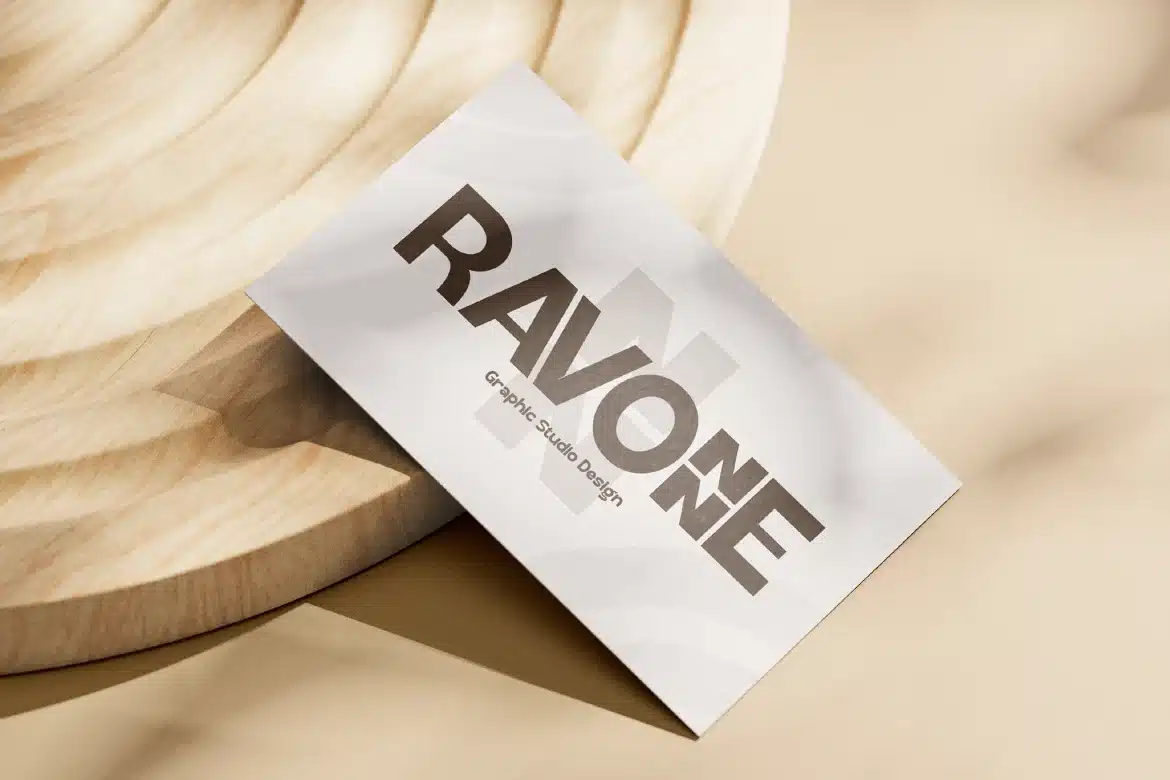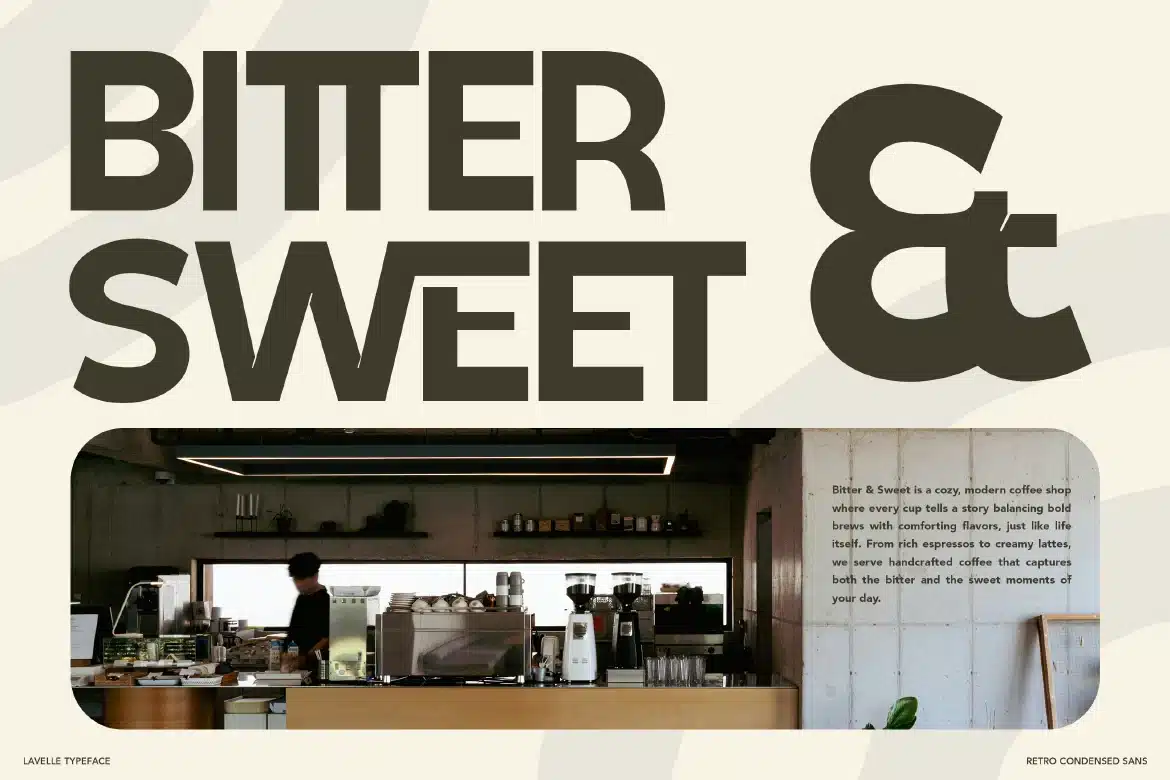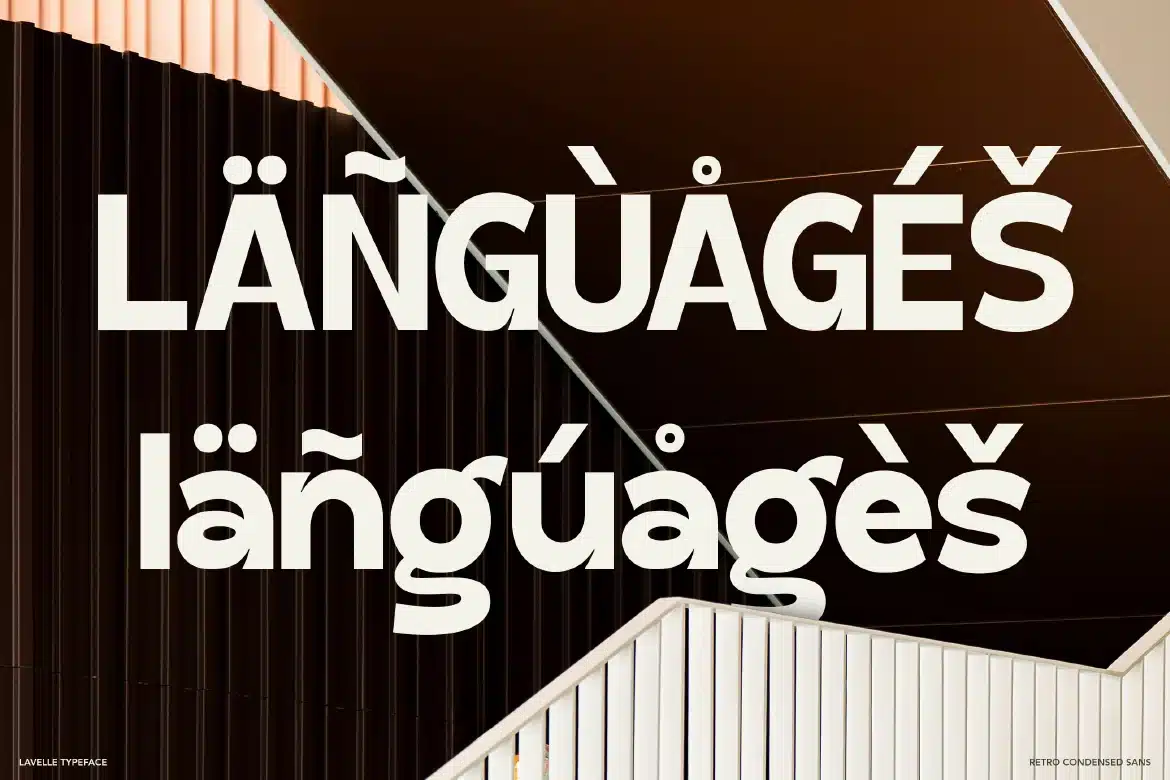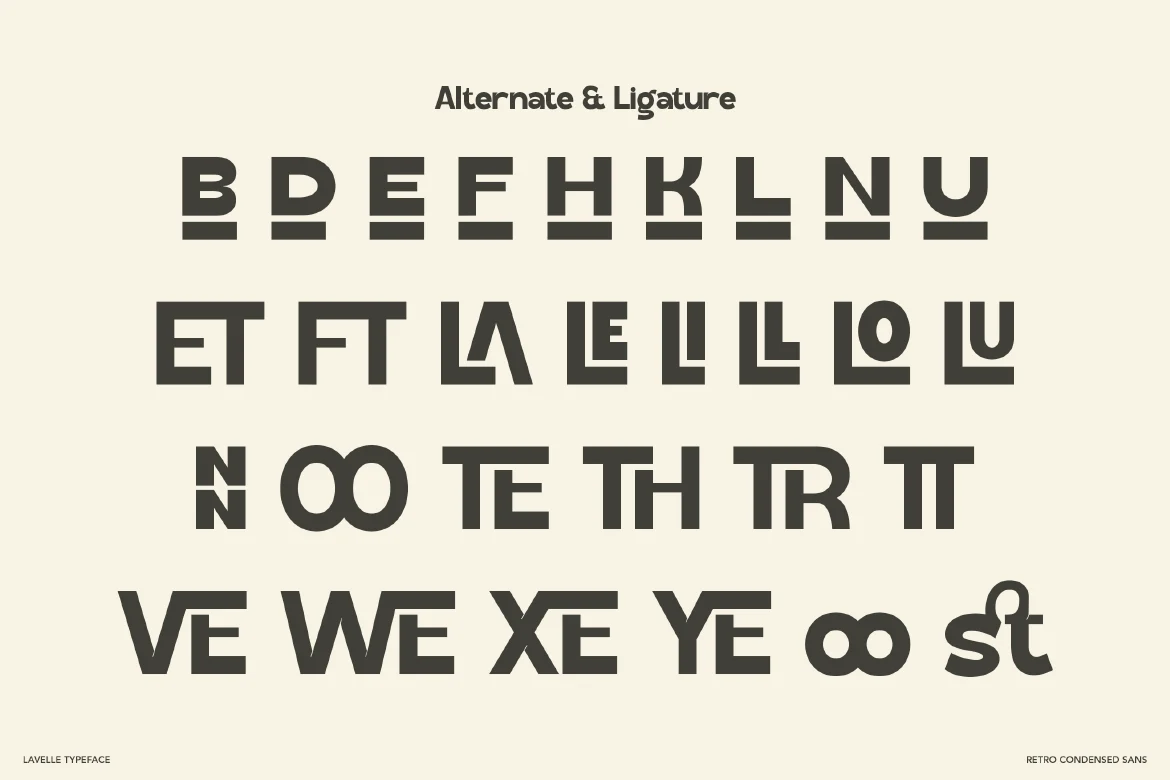
Retro Condensed Sans Font – Lavelle
Retro Condensed Sans Font - Lavelle
Lavelle is a stylish retro condensed sans typeface that captures the charm of vintage design with a clean and modern twist. Featuring tall, narrow letterforms and balanced spacing, Lavelle creates a strong visual impact while maintaining excellent readability. Its condensed structure makes it perfect for maximizing space without losing character, giving your designs a minimalist and nostalgic presence. Whether for branding, posters, or editorial layouts, Lavelle brings a timeless retro vibe with a fresh contemporary feel.
Lavelle is ideal for designers and creatives who love retro aesthetics with a modern edge. It’s especially suited for projects that require a compact, stylish, and eye-catching typography style.
Condensed display typography